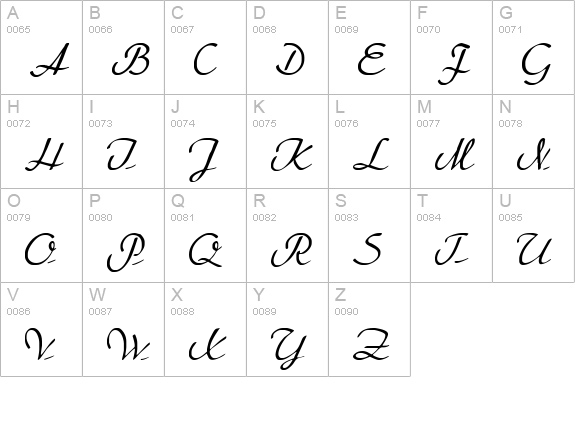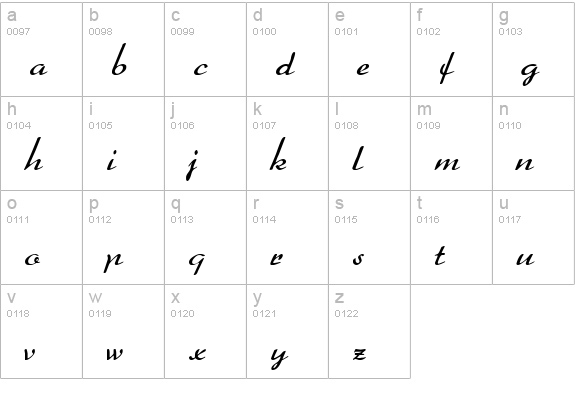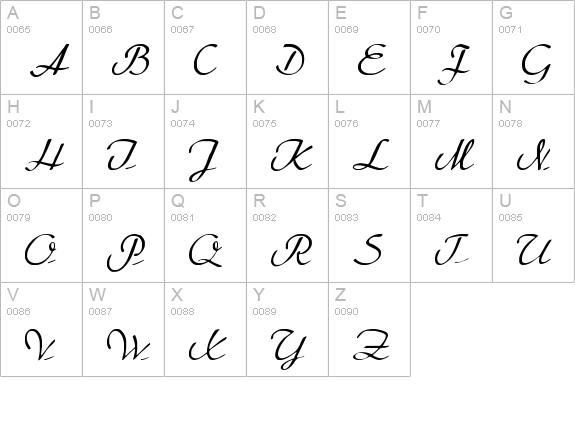
LA Bold Normal Font Details
LA Bold Normal is a strong, high-contrast variant in the LA typeface family \xE2\x80\x94 well suited to headlines, attention-grabbing titles, and strong calls-to-action.
Introducing LA Bold Normal, a stunning font that exudes elegance and confidence. This font is the epitome of modern design, with its sleek lines and perfectly balanced curves. It commands attention and captivates audiences with its bold presence on any project. LA Bold Normal is a versatile typeface that can be used for a wide range of design purposes. Whether you're creating eye-catching headlines, designing striking logos, or crafting impactful branding materials, this font will elevate your work to the next level. What makes LA Bold Normal even more remarkable is that it is available for free. That's right, you can download this incredible font without spending a dime. Simply visit FontsMarket.com, where LA Bold Normal is freely available for download. This means you can enhance your designs without breaking the bank. With LA Bold Normal, you have the freedom to unleash your creativity and create designs that are truly remarkable. Its clean and modern aesthetic will make your work stand out from the crowd, leaving a lasting impression on your audience. So, why wait? Download LA Bold Normal today and experience the power of this exceptional font. Let it transform your designs and take them to new heights. Whether you're a professional designer or a creative enthusiast, LA Bold Normal is a must-have addition to your font collection. Don't miss out on this opportunity to enhance your work with a font that is both visually striking and freely available.